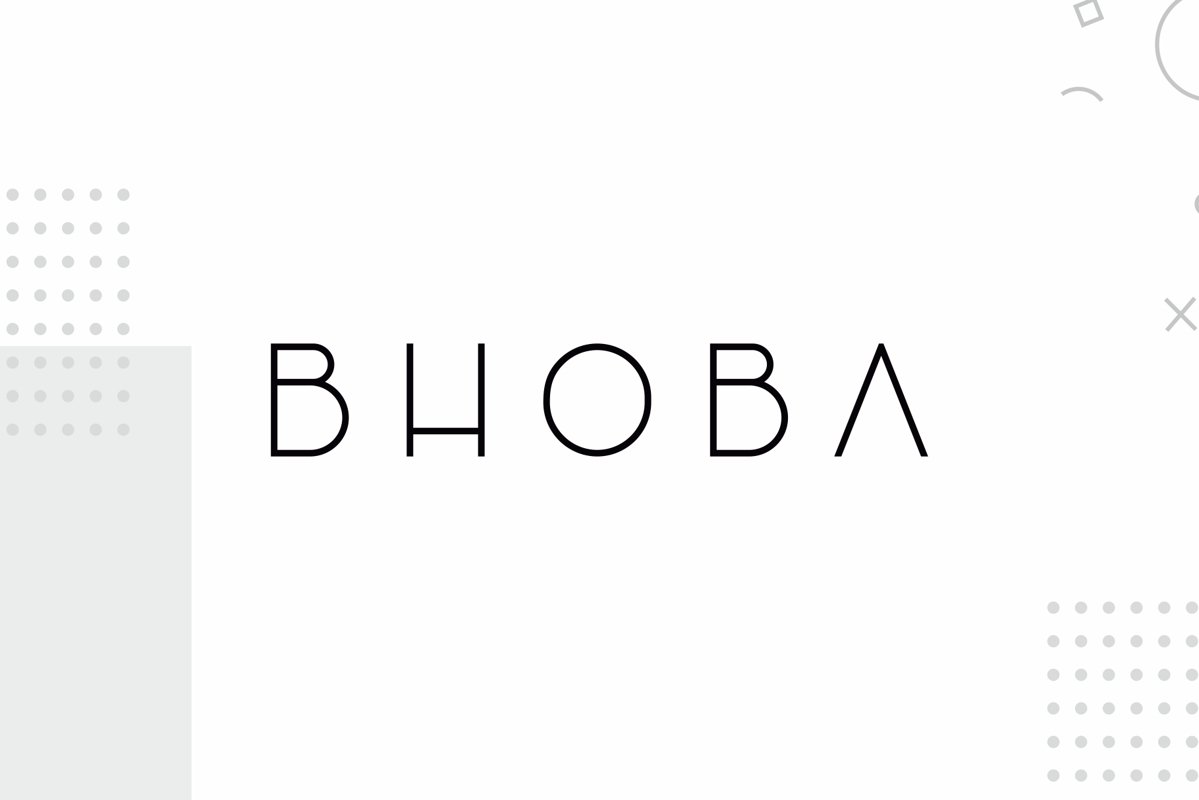
Bhoba
minimalis rounded typeface  it’s perfect for namecard, poster, logo, magazine, cover, banner, tshirt and headers, logo and other any business related.